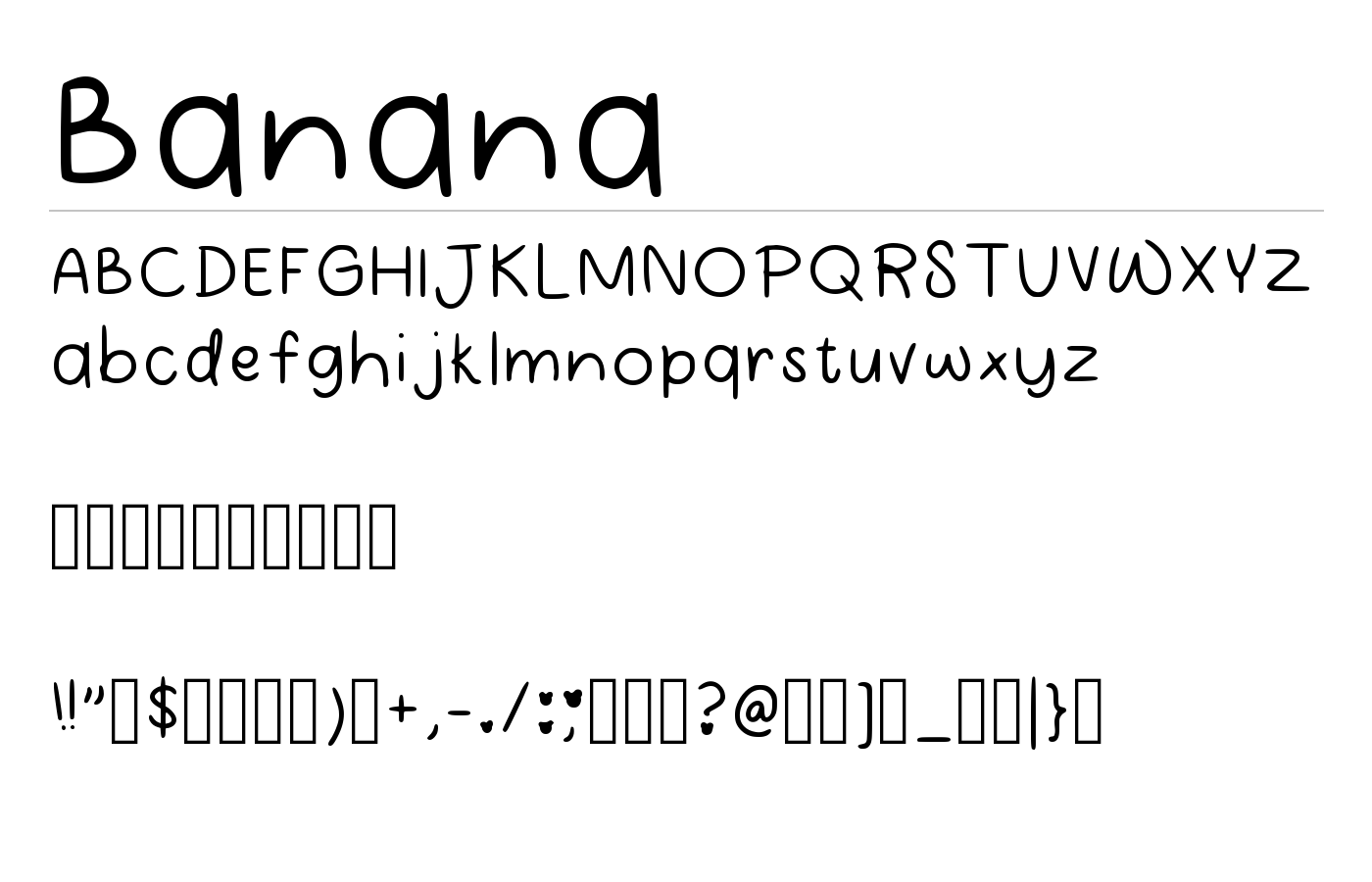
Banana Font is a playful, casual sans serif with a hand-drawn feel, featuring rounded edges and slightly irregular strokes that add a friendly and approachable charm. Its light weight and open letterforms make it ideal for informal designs, kids’ content, or creative projects that benefit from a warm, inviting personality. This font works well in headlines, logos, and packaging where a fun, relaxed tone is desired.
Banana Font
About Banana Font